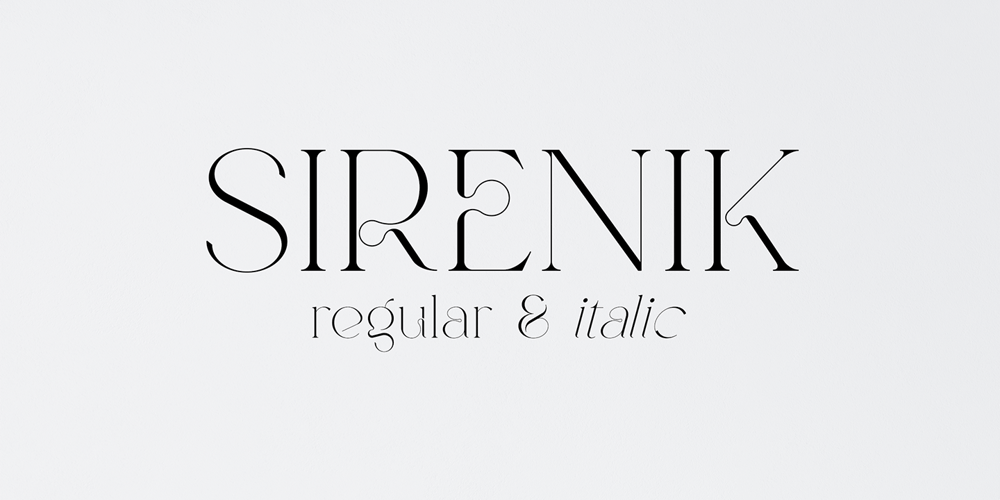
Sirenik Font Family was designed by Vladimir Fedotov, Plamen Petrov and published by VP Creative Shop. Sirenik contains 2 styles and family package options. Introducing Sirenik – Elegant serif fontSirenik is creative and sophisticated font with multilingual support. It’s a very versatile font that works great in large and small sizes.This font is perfect for branding projects, home-ware designs, product packaging, magazine headers – or simply as a stylish text overlay to any background image.FEATURES Uppercase, lowercase, numeral, punctuation & Symbol regular and italic versions Multilingual support No special software is required to type out the standard characters of the Typeface. Canva friendly Feel free to contact me if you have any questions!Mock ups and backgrounds used are not included.Thank you! Enjoy!